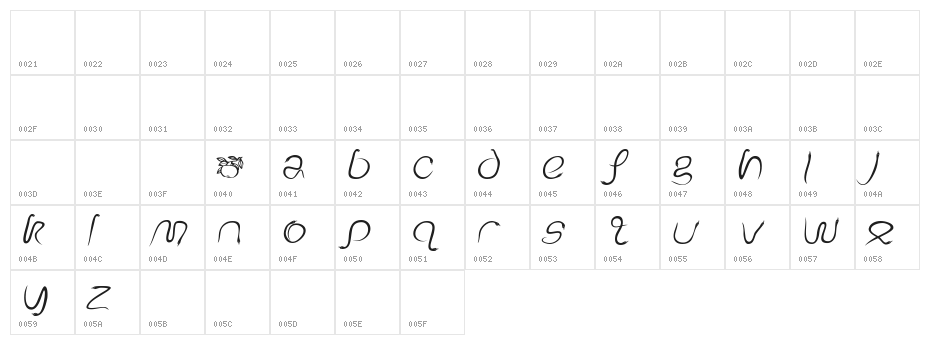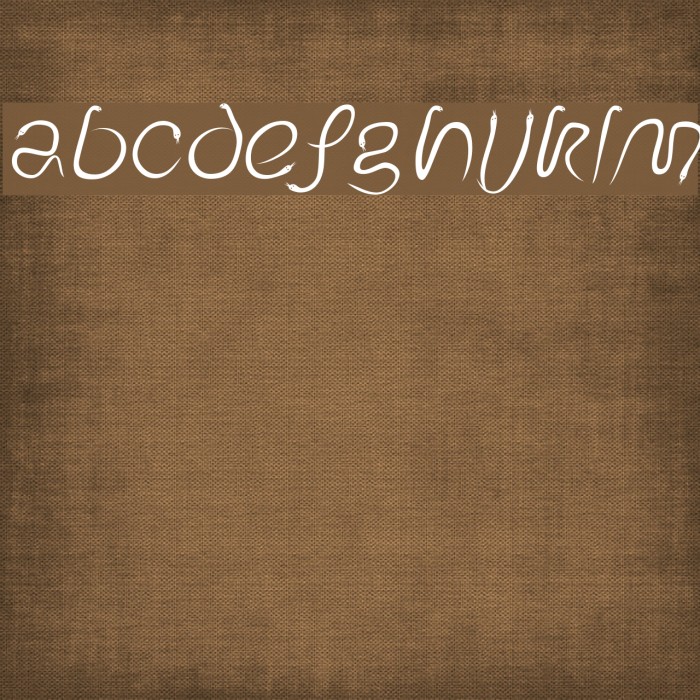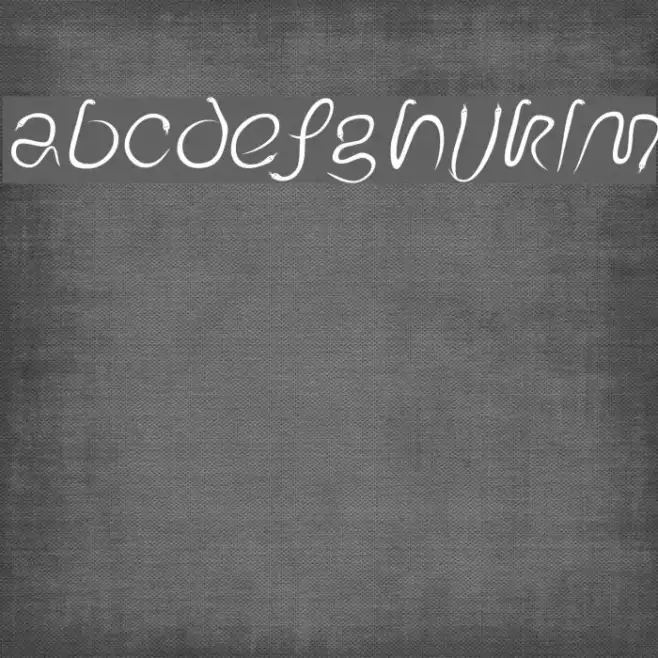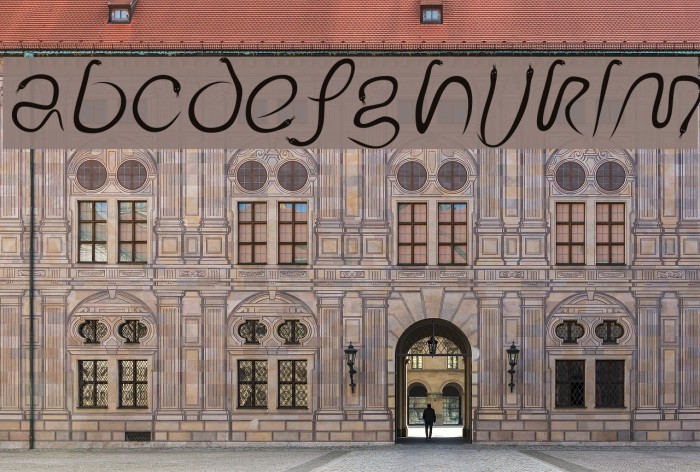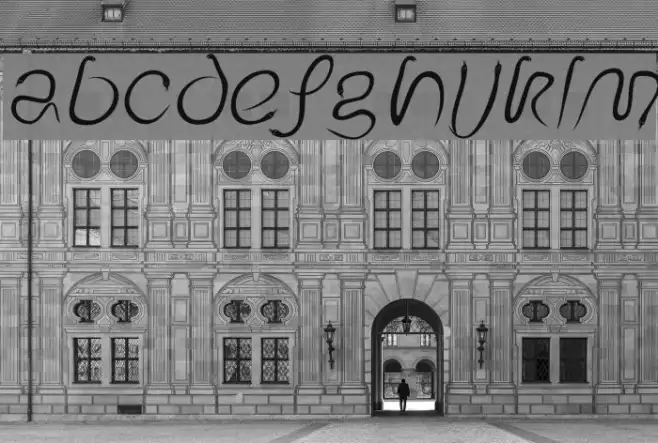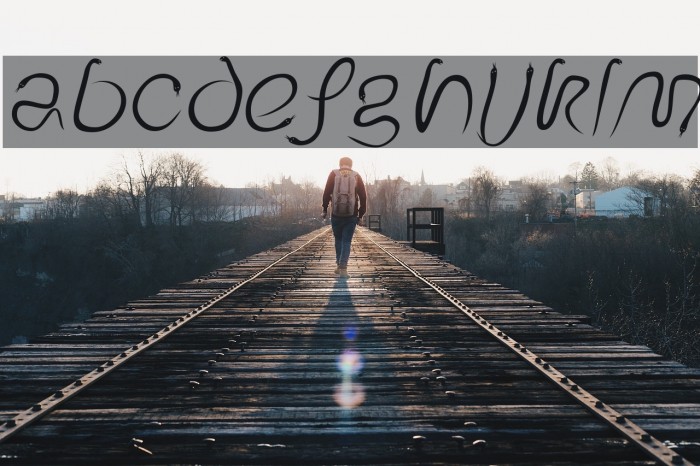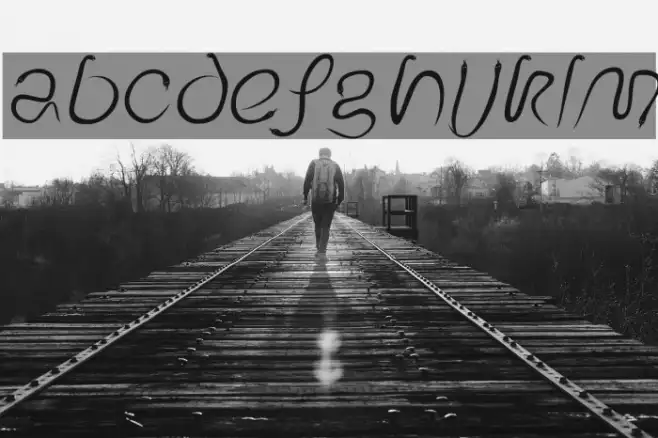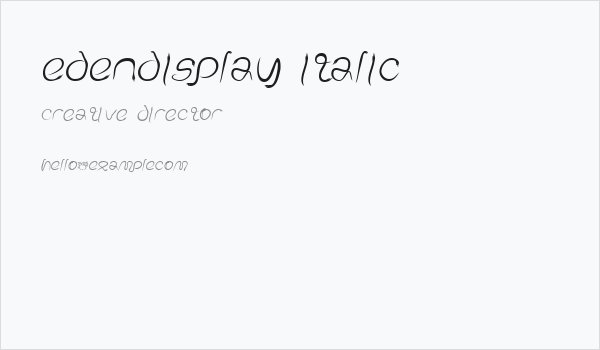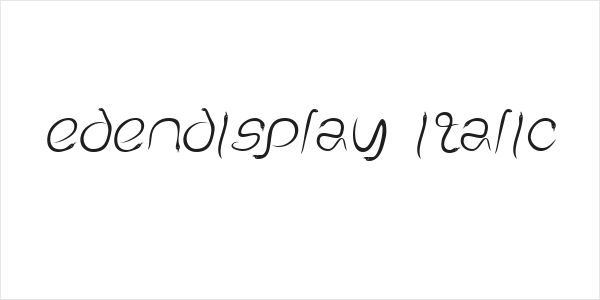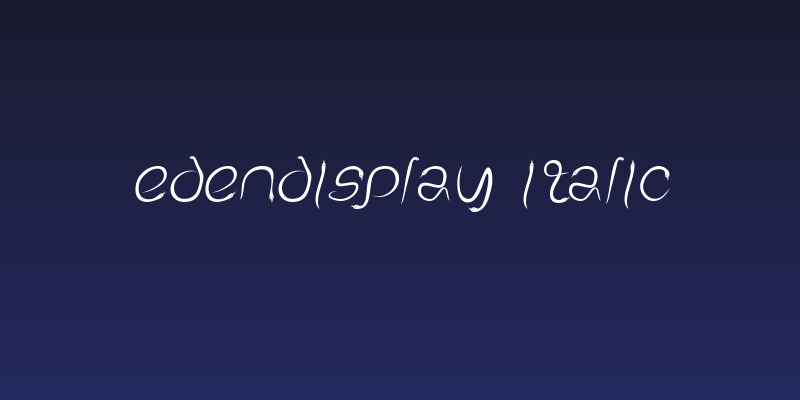
EdenDisplay Italic Font
EdenDisplay Italic Description
This font features a unique and artistic style, characterized by its flowing, cursive-like appearance. The letters are elegantly curved with a consistent slant, giving it an italicized look. The strokes vary in thickness, adding a dynamic and lively feel to the text. Each character is distinct, with some letters having extended tails or flourishes that enhance its decorative quality. The overall design is both modern and expressive, making it suitable for creative projects that require a touch of sophistication and flair.
| Proposed Projects | Ideal for creative projects such as invitations, greeting cards, branding, and artistic posters. |